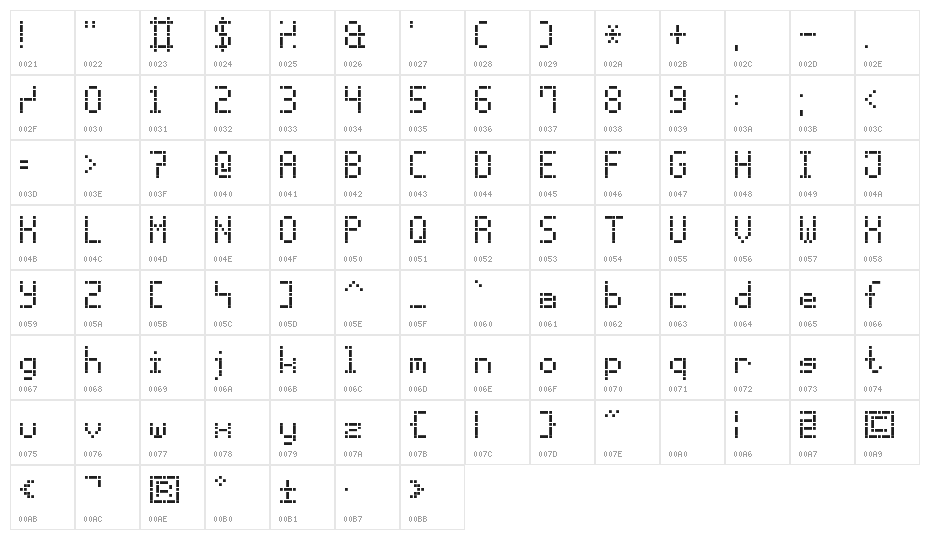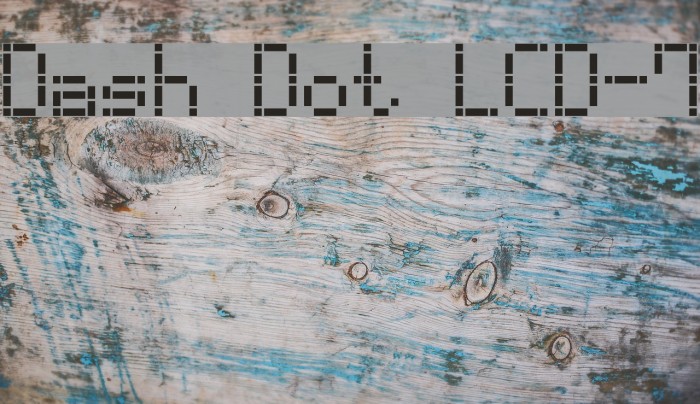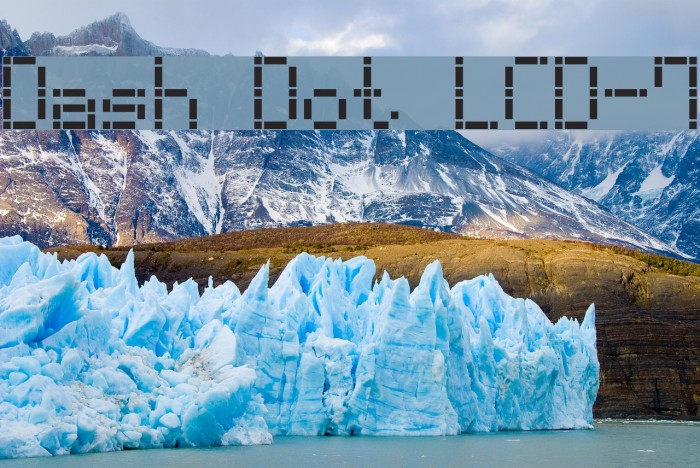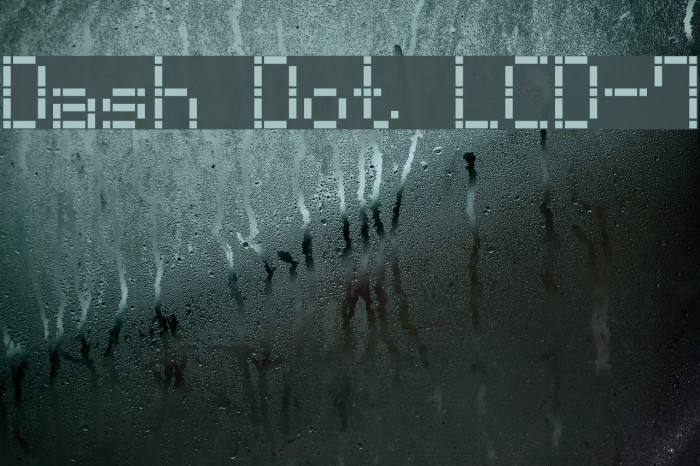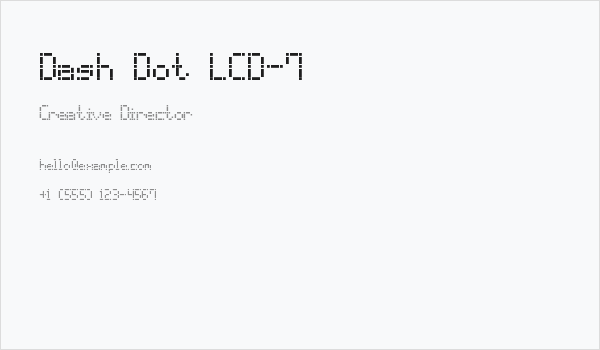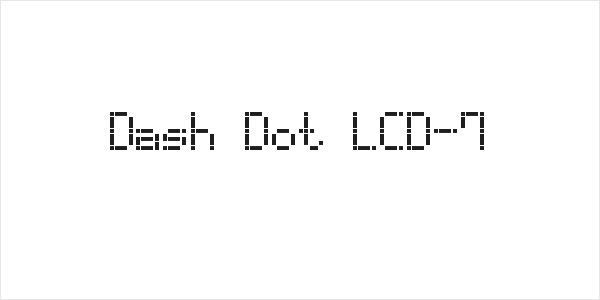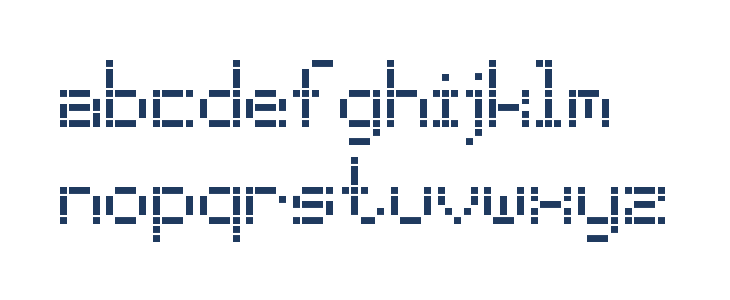
Dash Dot LCD-7 Font
Dash Dot LCD-7 Description
This font features a distinctive design reminiscent of digital displays, with characters composed of small, evenly spaced squares that mimic the appearance of an LCD screen. The geometric structure gives it a modern and technological feel, making it stand out with its pixelated style. Each character is clearly defined, maintaining uniformity across both uppercase and lowercase letters, as well as numbers and special symbols. The font's grid-like pattern ensures readability while providing a unique aesthetic that is both futuristic and retro, suitable for digital-themed projects.